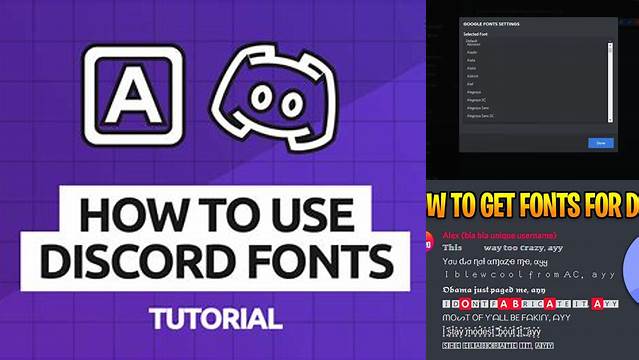
Discord Font Magic: Styles & How To Use Them
Discord is a fantastic platform for communities to connect, share, and hang out. While it's known for its ease of use and vibrant community features, many users wonder how to spice up their text with different fonts and styles in Discord channels. Letβs dive into how you can make your messages stand out!
Understanding Discord's Text Formatting Basics
Before we get into fancy fonts, it's crucial to understand the basic text formatting options Discord offers. These formatting tools are your bread and butter for adding emphasis, structure, and clarity to your messages. Discord uses Markdown, a simple formatting language, to allow users to bold, italicize, underline, and strikethrough text, and even create code blocks. These features are built right into the platform and require no external tools or bots. Mastering these basics is the first step in making your Discord communication more effective and engaging. Think of it like learning the scales before you try to play a complex piece of music β these simple tools are fundamental. Let's explore each of these formatting options in detail to ensure you know how to wield them effectively.
Bold Text in Discord
To make your text bold in Discord, simply enclose the words you want to emphasize with double asterisks (**). For example, if you type This is bold text, Discord will display it as This is bold text. Using bold text is an excellent way to highlight important information, draw attention to specific points, or add emphasis to your statements. Imagine you're organizing a game night; you could use bold to highlight the time and date: Game Night: Friday at 8 PM. This makes it immediately clear to everyone what the key details are. Bold text can also be used to create a sense of urgency or excitement. If you're announcing a surprise giveaway, for instance, you might say: Huge Giveaway Happening Now! Remember to use bold sparingly to maintain its impact. Overusing it can make your messages look cluttered and less effective.
Italic Text in Discord
To italicize your text in Discord, enclose the desired words with single asterisks (*). For instance, typing This is italic text will render as This is italic text. Italics are great for adding a softer emphasis, indicating thoughts or internal monologues, or citing titles of books or articles. Think of it as a subtle nudge rather than a shout. For example, you might use italics to express a thought: I wonder if they'll bring snacks tonight. Or, if you're referencing a book, you could say: I'm currently reading 'The Hitchhiker's Guide to the Galaxy'. Italics can also be useful for setting off words or phrases that are foreign or unfamiliar. Using italics effectively can add nuance to your messages and make your writing more engaging. Just like with bold, moderation is key. Overusing italics can make your text harder to read and diminish its impact.
Underline Text in Discord
To underline text in Discord, enclose the words you want to emphasize with double underscores (__). For example, typing This is underlined text will render as This is underlined text. Underlining is useful for drawing attention to specific parts of a sentence or highlighting important information. For example, in a set of instructions, you might underline the most crucial step: "Make sure to save your work before closing the program." This ensures that the reader doesn't miss this critical instruction. Underlining can also be effective in lists or when presenting key points. Instead of using bold, which can sometimes feel too strong, underlining offers a more subtle way to emphasize information. However, like with other formatting options, it's best to use underlining sparingly. Overusing it can make your text look cluttered and less professional. In most cases, combining underlining with other formatting options like bold or italics can create a more impactful effect.
Strikethrough Text in Discord
To strikethrough text in Discord, enclose the words you want to strike through with double tildes (~~). For example, typing This text is struck through will render as This text is struck through. Strikethrough is particularly useful for indicating edits, corrections, or humorous cancellations in your messages. Imagine you're correcting a typo; instead of deleting the mistake, you can use strikethrough to show the original word and then provide the correction. For instance: "I meant to say hello hi." This adds a touch of humor and transparency to your communication. Strikethrough can also be used to show that something is no longer relevant or valid. If you're organizing an event and a particular activity is canceled, you can use strikethrough to indicate that it's no longer happening: "Movie night Canceled due to unforeseen circumstances." This keeps everyone informed in a clear and concise manner. Strikethrough is also great for adding a bit of sarcasm or irony to your messages. Use it sparingly to maintain its impact and avoid confusing your readers.
Code Blocks in Discord
Discord offers a handy feature called code blocks, which are perfect for sharing snippets of code or any text that you want to display in a fixed-width font. There are two types of code blocks: inline and multi-line. Inline code blocks are created by enclosing text within single backticks (), while multi-line code blocks are created by enclosing text within triple backticks (```). Inline code blocks are great for quickly referencing a specific command or variable within a sentence. For example: "To run the program, type python main.py`." Multi-line code blocks are ideal for sharing larger chunks of code or configuration files. These blocks preserve the formatting and indentation of the text, making it easy for others to read and understand. When using multi-line code blocks, you can also specify the programming language to enable syntax highlighting, which further enhances readability. For example: ```python
def hello_world():
print("Hello, world!")
## Spicing Things Up: Custom Fonts in Discord
Now, let's talk about adding custom **fonts** to your Discord messages. Discord doesn't natively support changing the **font** style directly within the app. However, there are a couple of workarounds you can use to achieve a similar effect. One popular method is to use online **font** generators. These tools allow you to type your text, select from a variety of stylish **fonts**, and then copy and paste the generated text into your Discord channel. The other method involves using Unicode characters to mimic different **font** styles. While this method is more manual, it can be effective for adding subtle variations to your text. Keep in mind that these methods don't actually change the **font** in Discord; instead, they use special characters that resemble different **fonts**. This means that the appearance of the text may vary depending on the recipient's device and operating system. Despite these limitations, using custom **fonts** can be a fun way to personalize your messages and make them stand out from the crowd.
### Using Online Font Generators
Online **font** generators are a convenient way to create stylish text for your Discord messages. These tools offer a wide range of **fonts**, from elegant scripts to bold and futuristic designs. To use a **font** generator, simply type your text into the generator's input field, and it will instantly display your text in various **fonts**. You can then choose the **font** that you like best and copy the generated text to your clipboard. Finally, paste the text into your Discord channel, and your message will appear in the selected **font**. Some popular **font** generators include LingoJam, Cool Symbol, and Text Generator. These tools are easy to use and require no special skills or software. However, it's important to note that the **fonts** generated by these tools are not true **fonts**; they are simply collections of Unicode characters that resemble different **font** styles. This means that the appearance of the text may vary depending on the recipient's device and operating system. Additionally, some **fonts** may not be supported by all devices, so it's always a good idea to test your messages on different devices to ensure that they look as intended.
### Leveraging Unicode Characters for Font Effects
Another way to add **font** effects to your Discord messages is by using Unicode characters. Unicode is a universal character encoding standard that includes a vast array of symbols, including characters that resemble different **font** styles. By combining these characters, you can create text that looks like it's in a different **font**. For example, you can use the "fullwidth forms" Unicode block to create text that looks like it's in a bold **font**. Similarly, you can use the "mathematical alphanumeric symbols" Unicode block to create text that looks like it's in a script **font**. However, this method is more manual and time-consuming than using a **font** generator. You'll need to find the appropriate Unicode characters for each letter and manually type them into your message. Additionally, the appearance of the text may not be consistent across all devices, as some devices may not fully support certain Unicode characters. Despite these limitations, using Unicode characters can be a fun way to add subtle variations to your text and create unique **font** effects. Just be sure to test your messages on different devices to ensure that they look as intended.
So there you have it β a comprehensive guide to using **fonts** in Discord channels! While Discord doesn't natively support changing **fonts**, these methods and tips should help you spice up your messages and make your Discord experience even more enjoyable. Happy chatting, *guys!* βοΈ